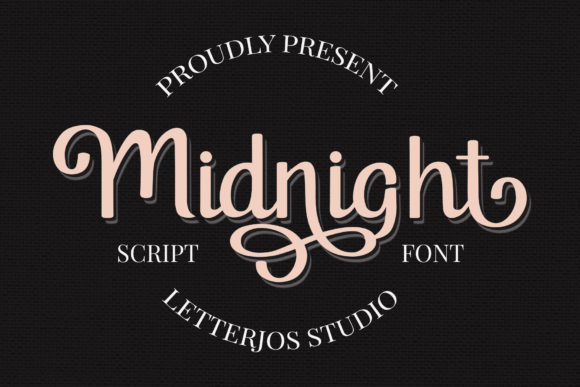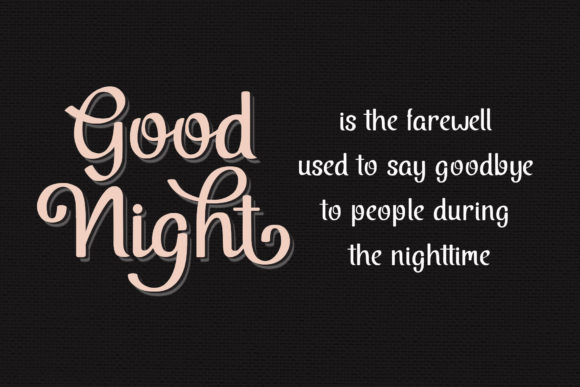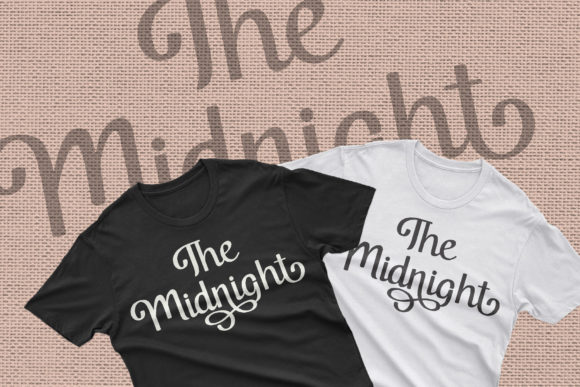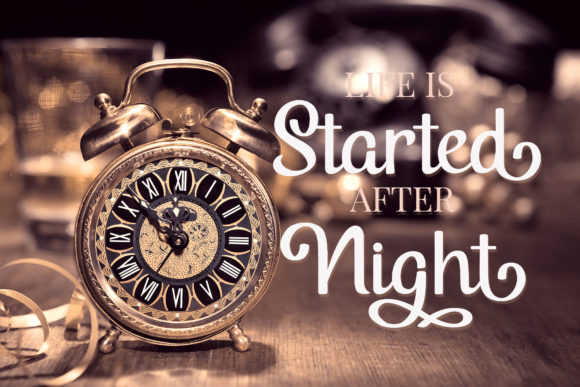
Midnight Font
About Midnight Font
Midnight is a beautiful and elegant script font. Each glyph has its own uniqueness and when meeting with others it will provide a dynamic and pleasing proximity. This font will be perfect for any project be it header design, quotation, poster design, branding, promotional material and much more.